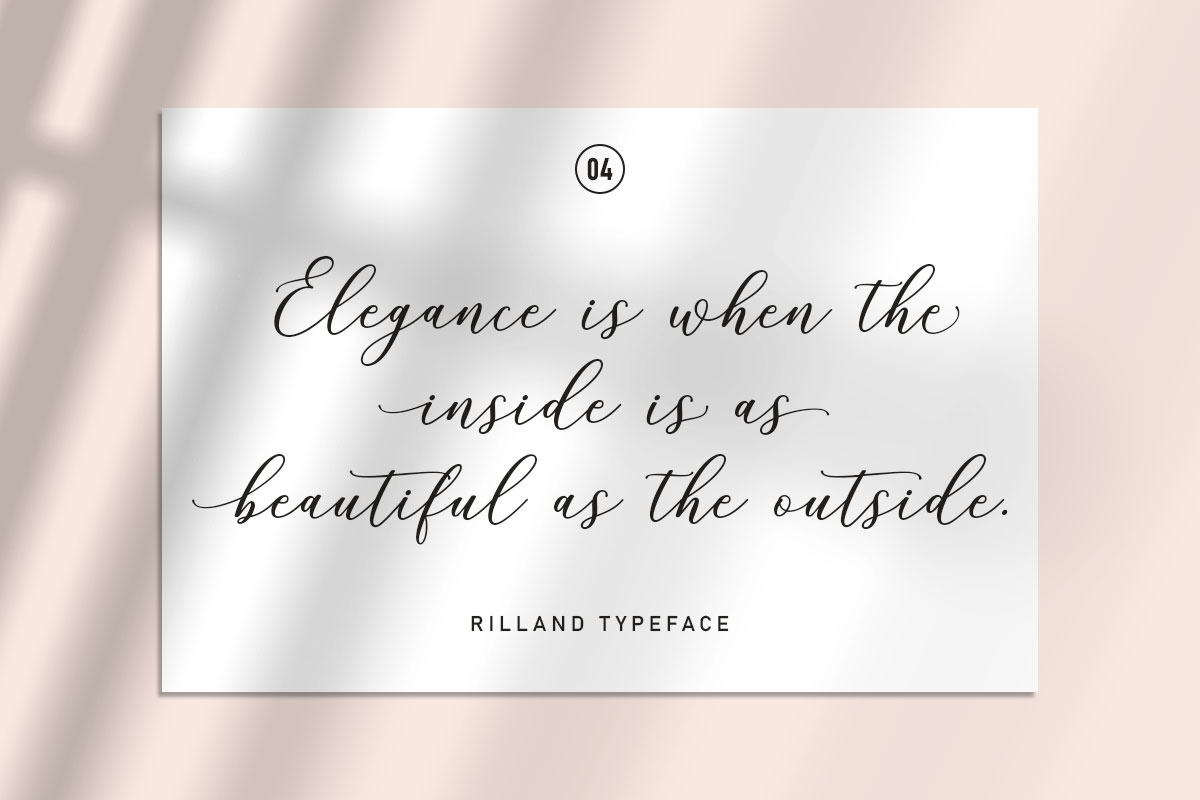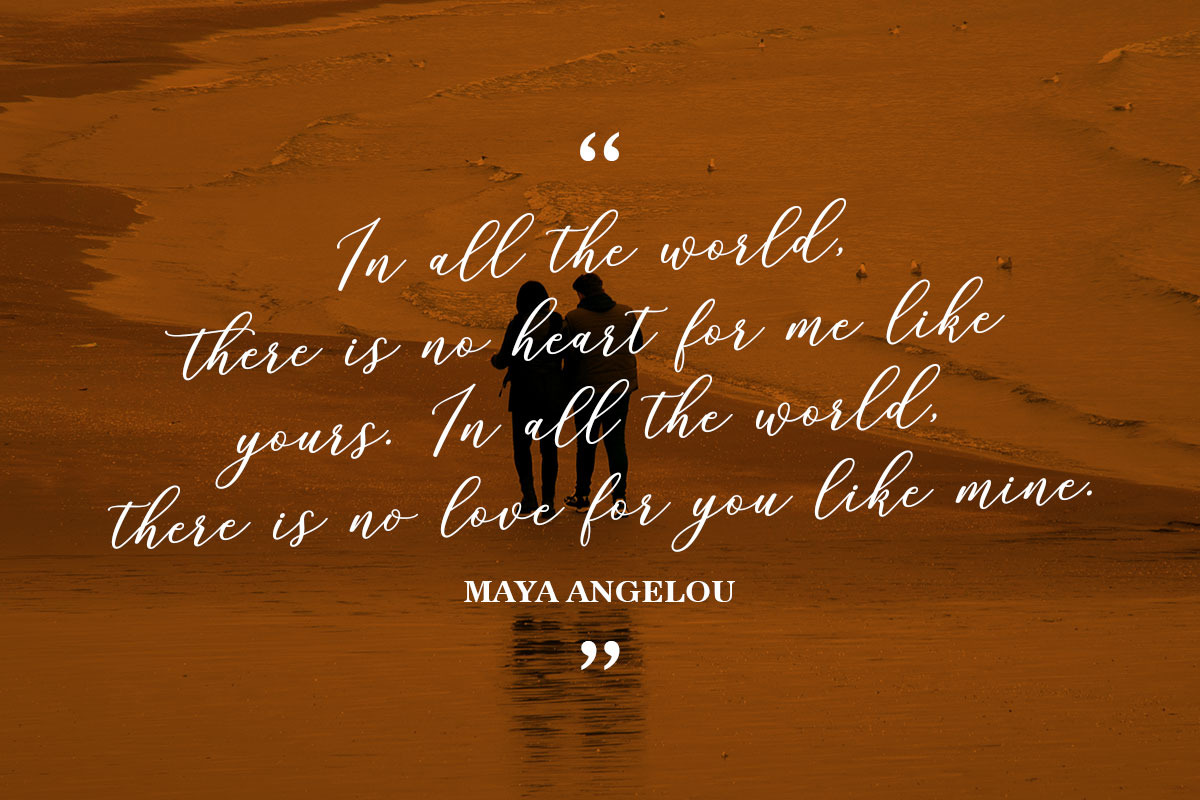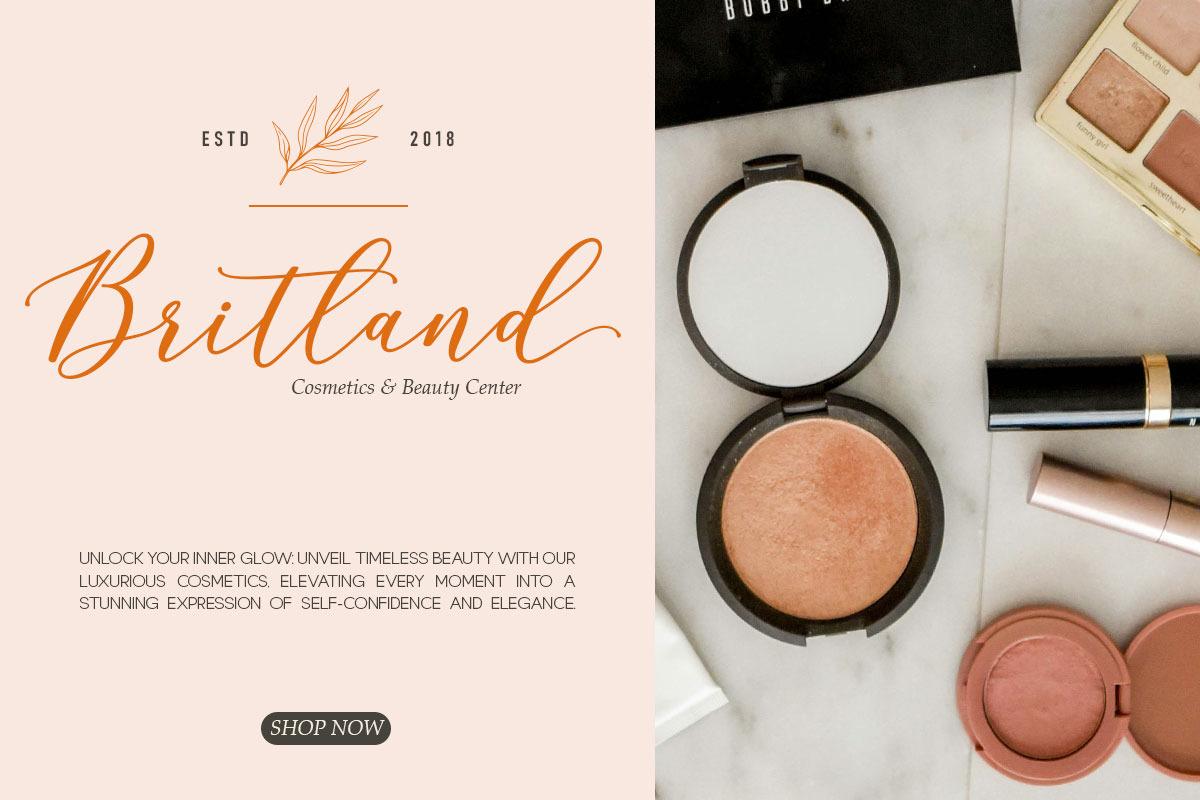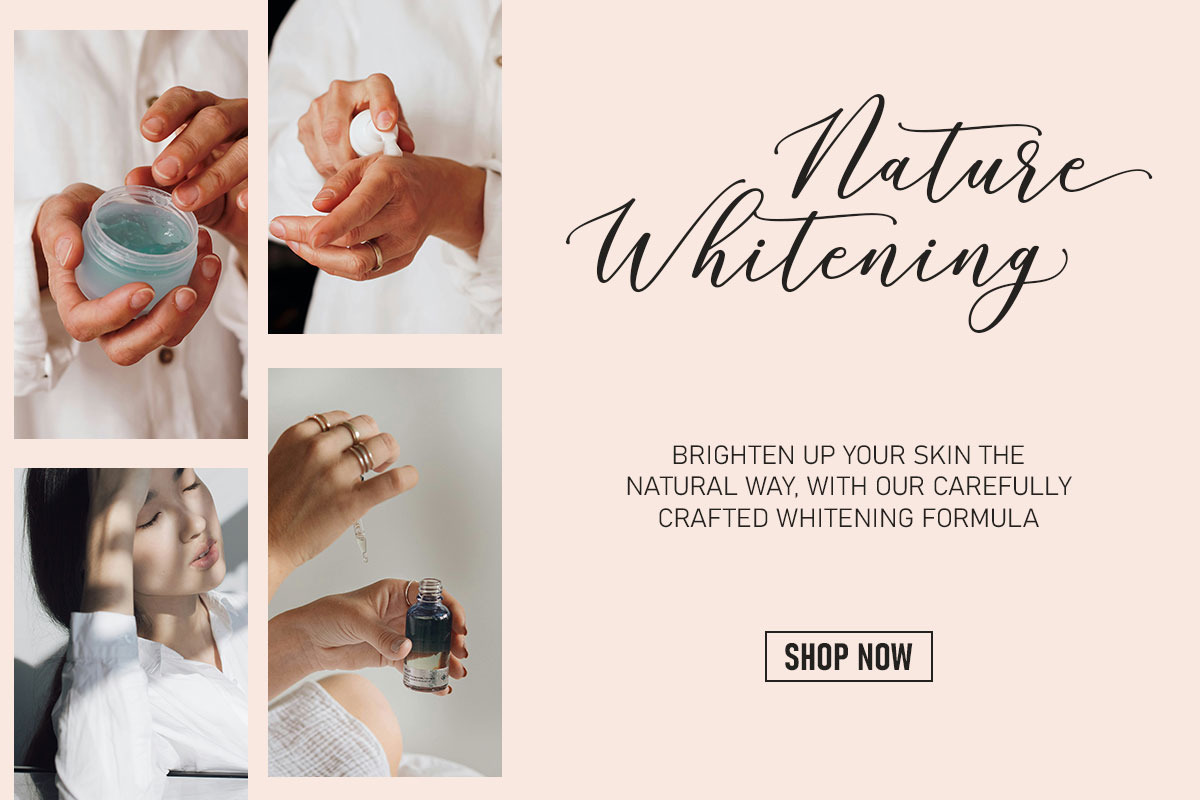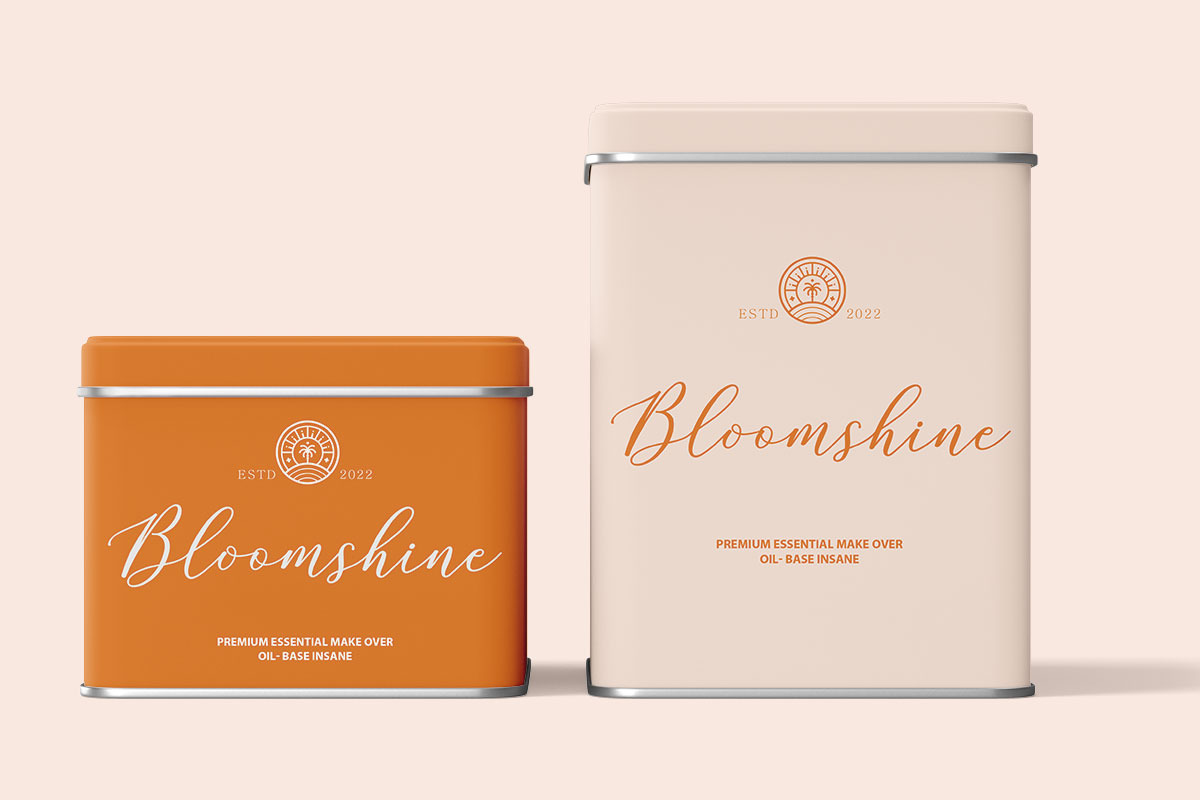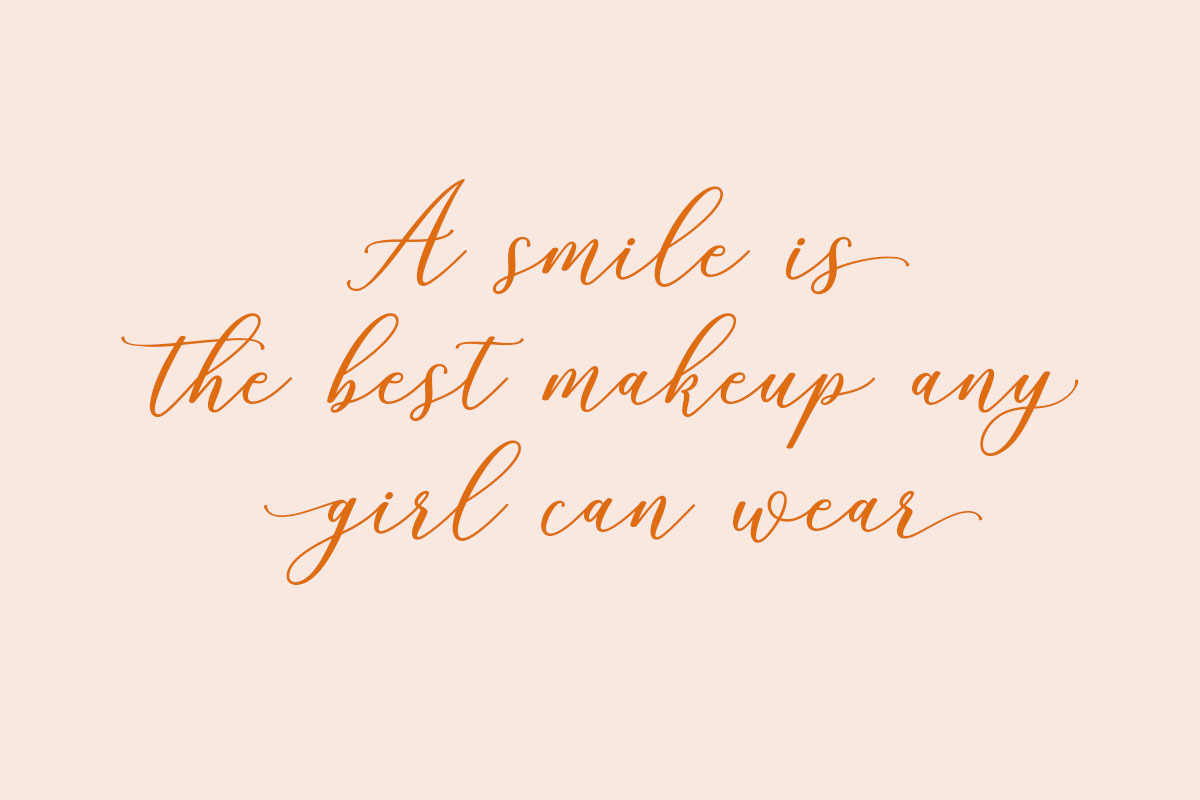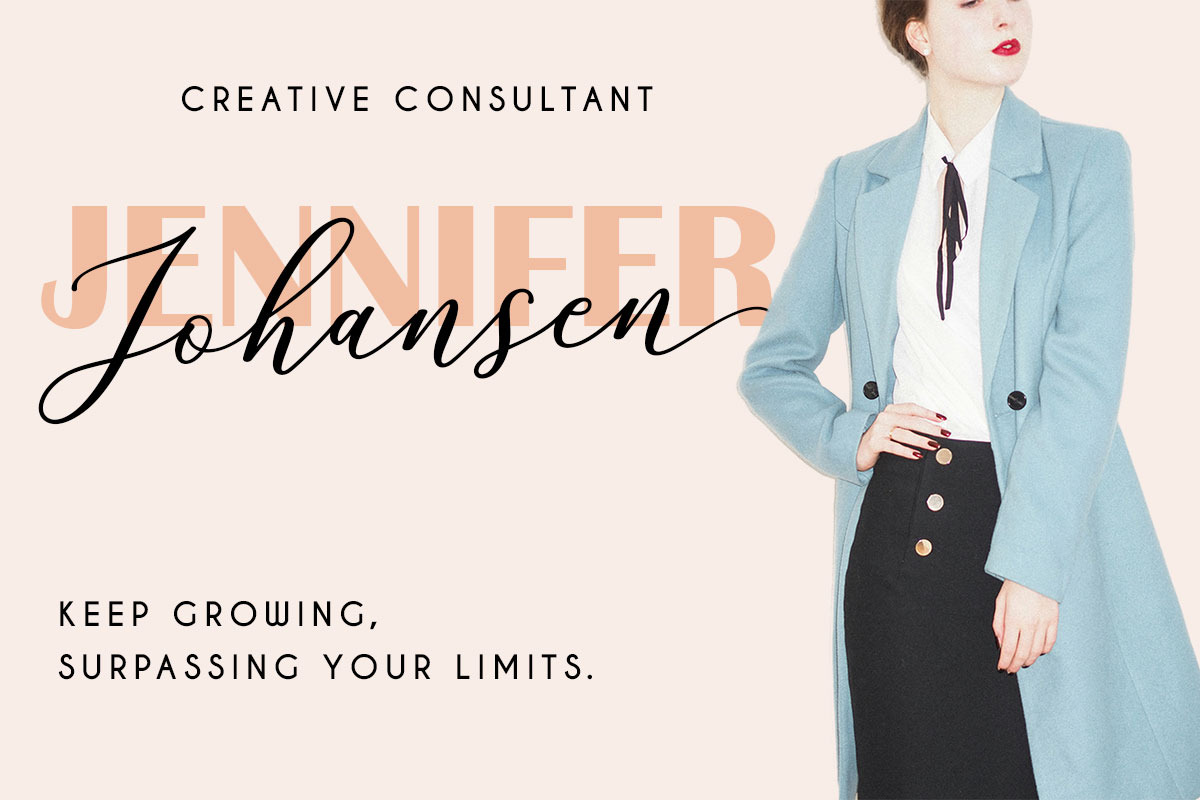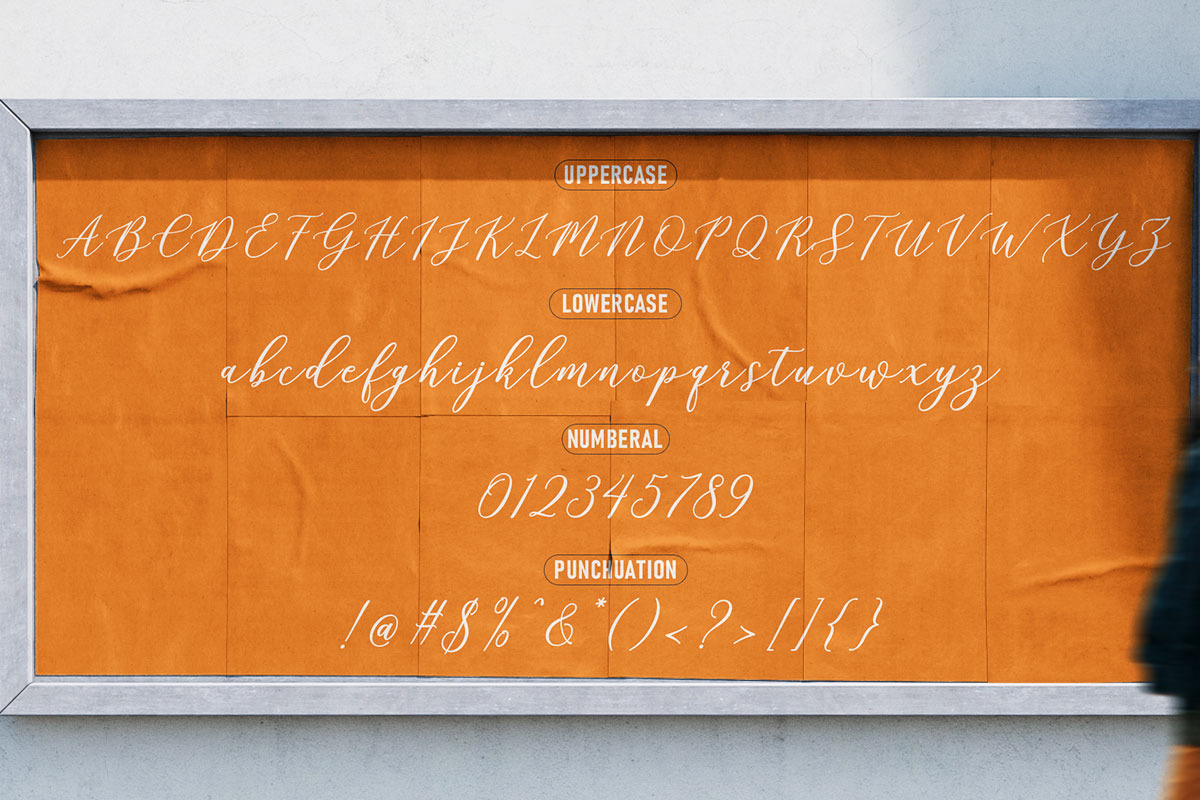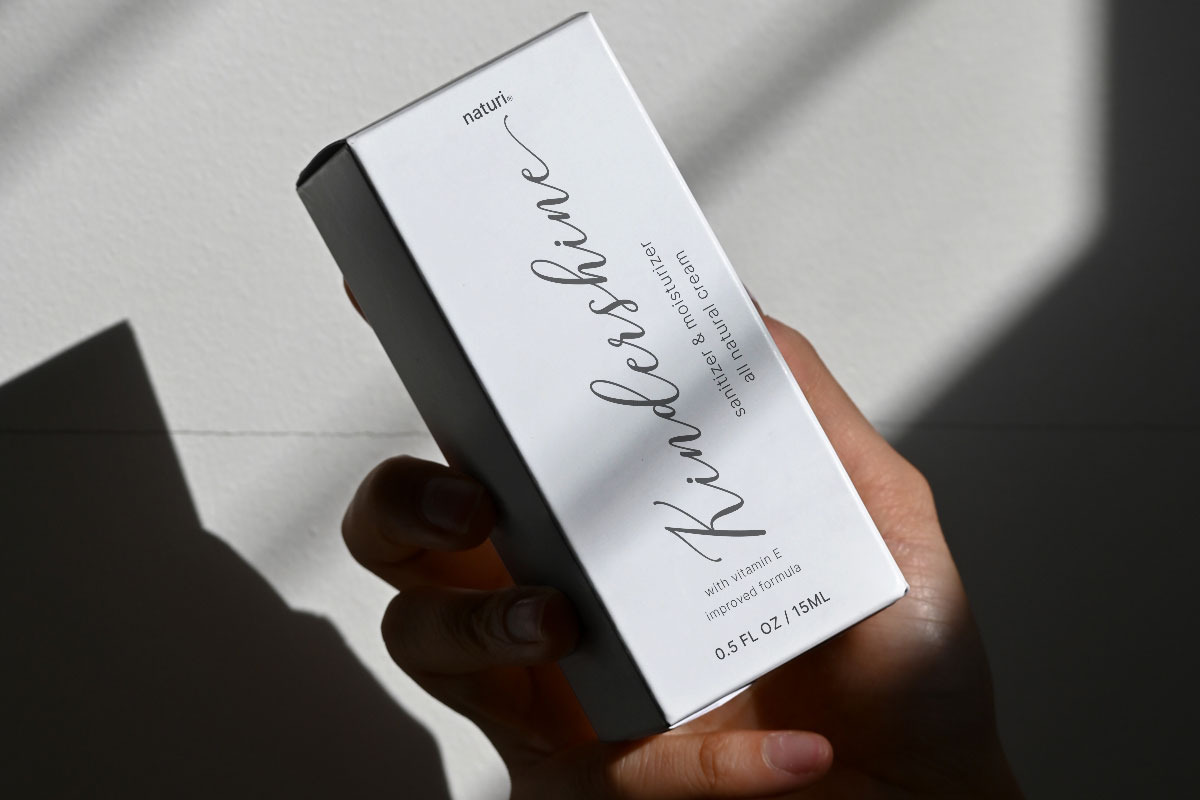
Rilland
Rilland is a Script font that combines classic elements with a modern touch. This font is designed to give an elegant and classy impression, suitable for various applications.
Rilland offers an elegant and stylish character, with subtle details that give a premium impression, which is used for various design purposes, from wedding invitations, magazines, to logos and each letter has distinctive details, giving a unique and memorable appearance.
Rilland is the perfect choice for designers looking for a font that can enhance the aesthetics of their projects with a touch of elegance.